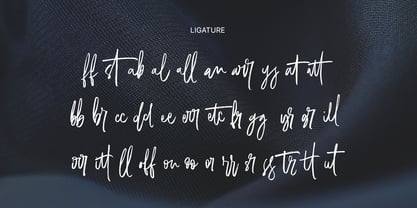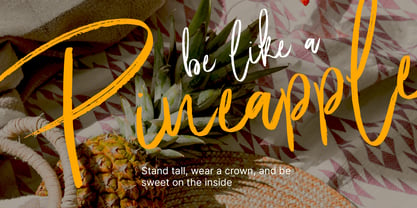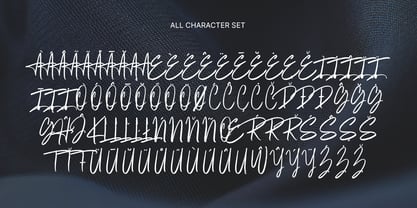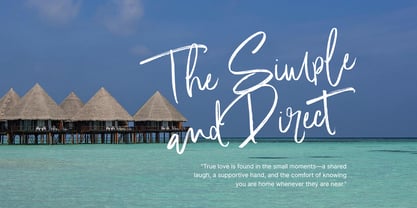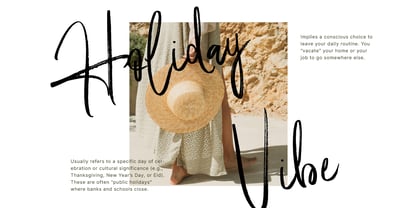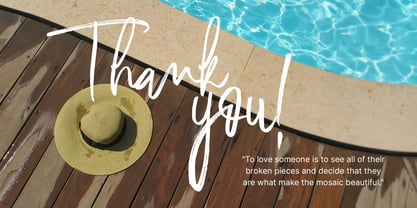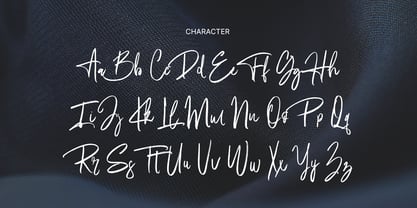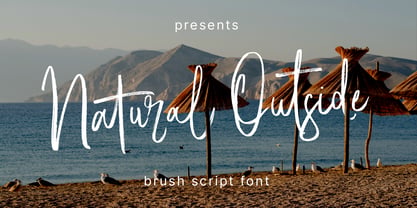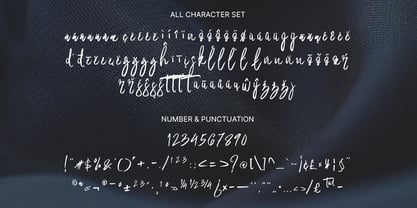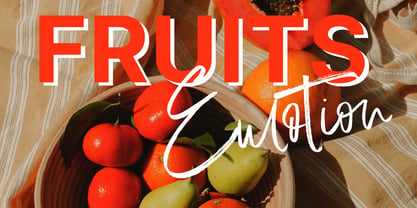
Natural Outside
The Natural Outside Font Family was designed by khaidir and published by Gatype. Natural Outside contains 1 styles. More about this family
Natural Outside is a casual handwritten font with a detailed and unique brushstroke texture. It can be used for a variety of purposes, such as titles, signatures, letterheads, signage, labels, newsletters, posters, logos, correspondence, wedding invitations, badges, and more. The Natural Outside Brush font is encoded with Unicode PUA, which allows full access to all additional characters without the need for special design software. Mac users can use Font Book, and Windows users can use Character Map to view and copy any additional characters for pasting into your favorite text editor/application. Thanks so much for looking, and let me know if you have any questions.